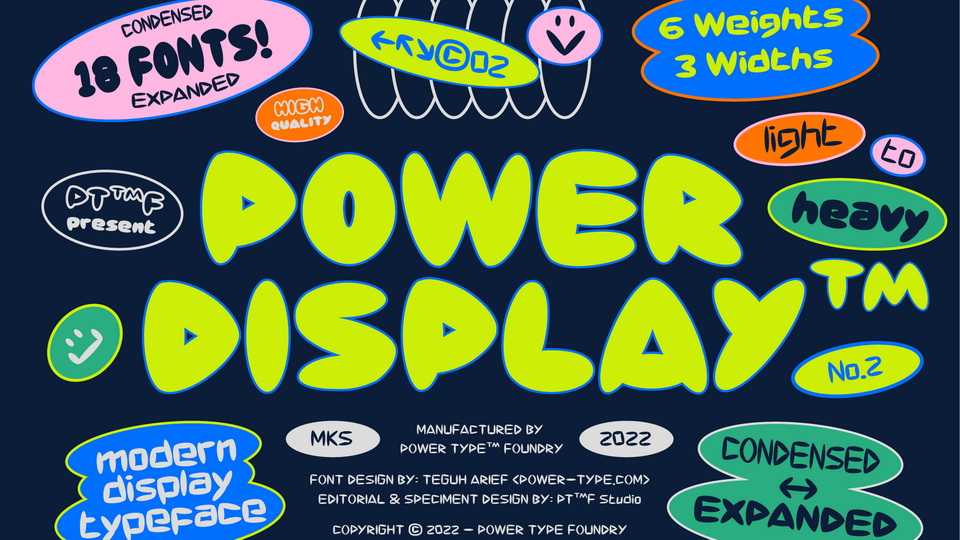
Download Power Display font, a typeface inspired by a fun cartoon character combined with a modern style. Power Display font can be used for modern and vintage designs.